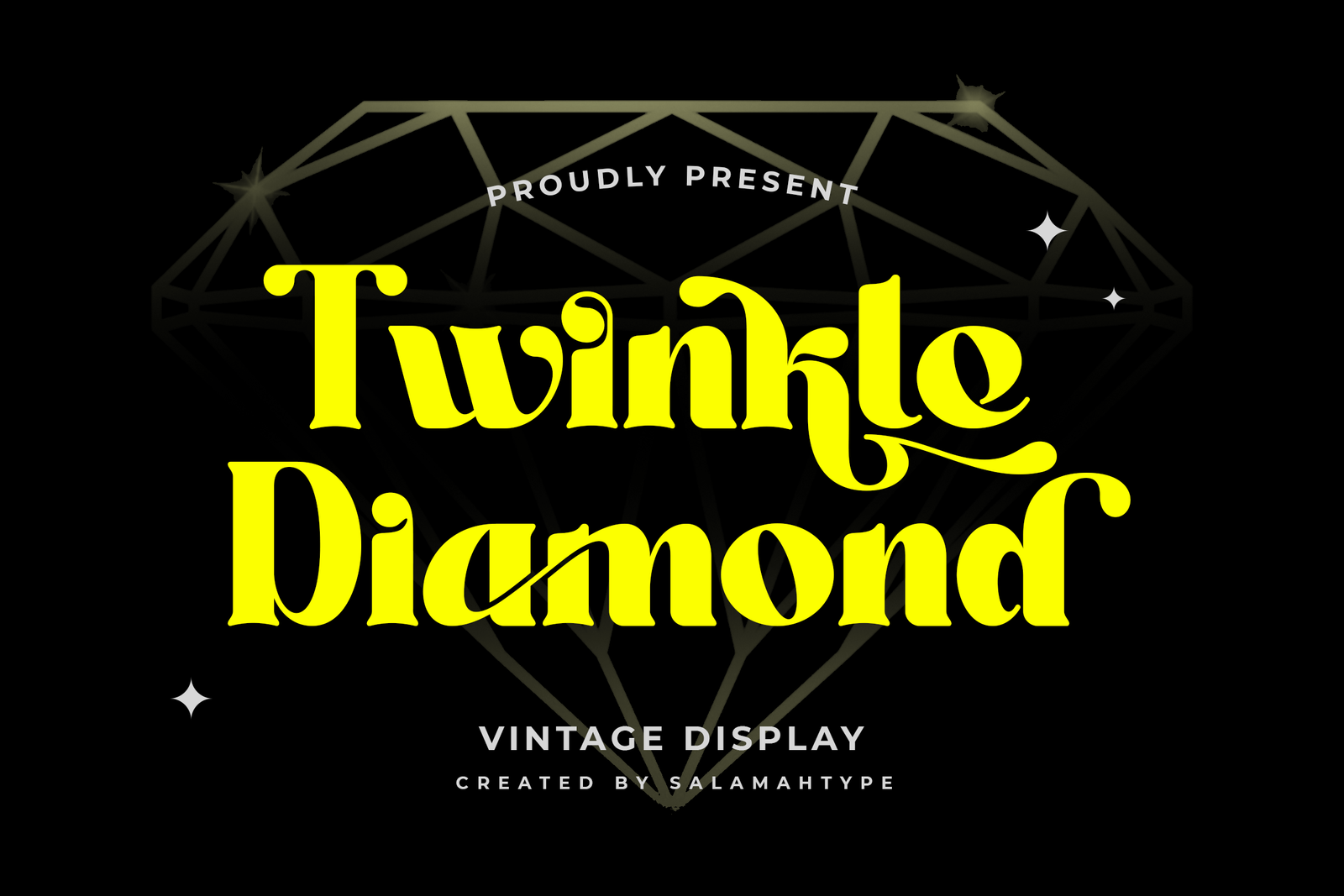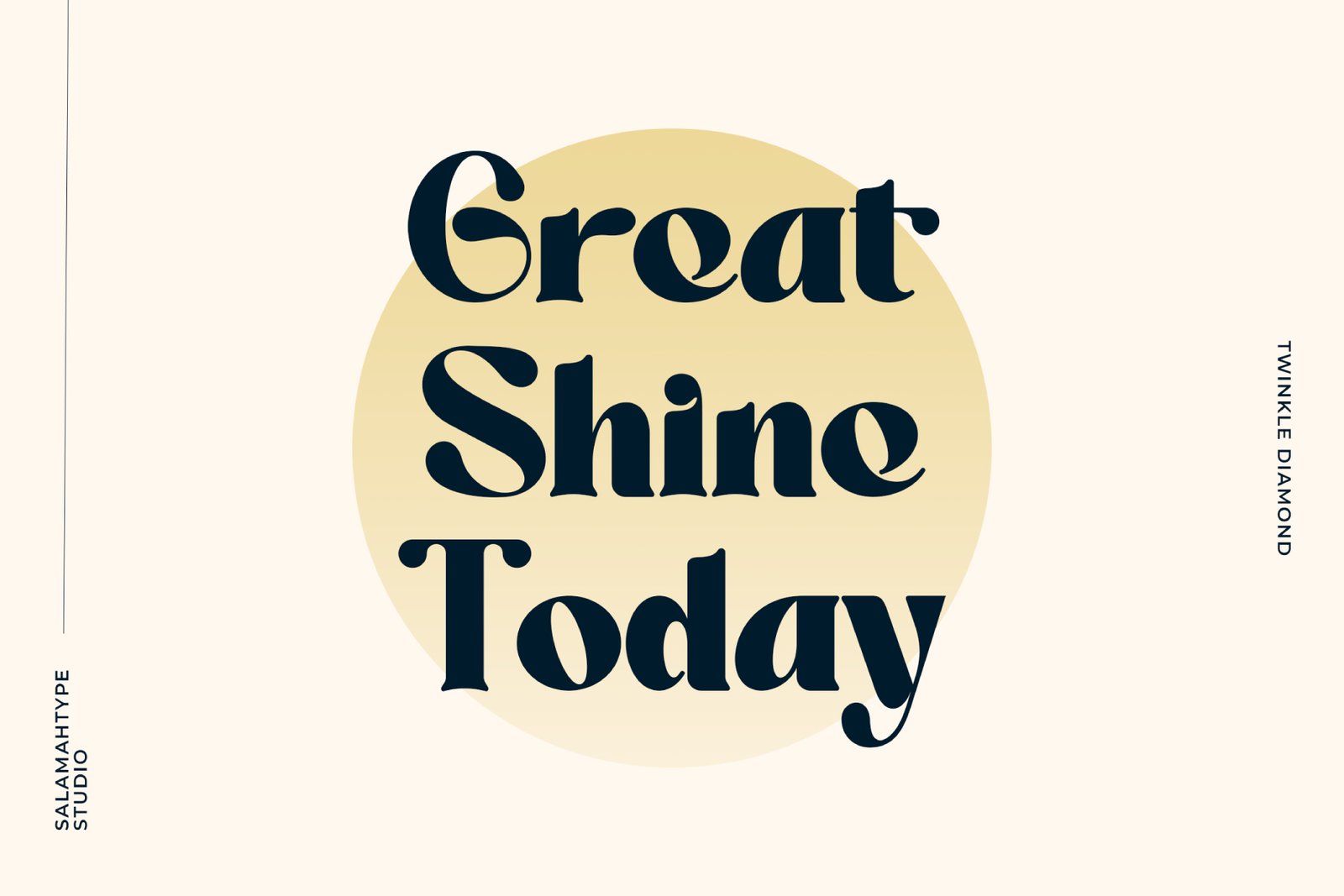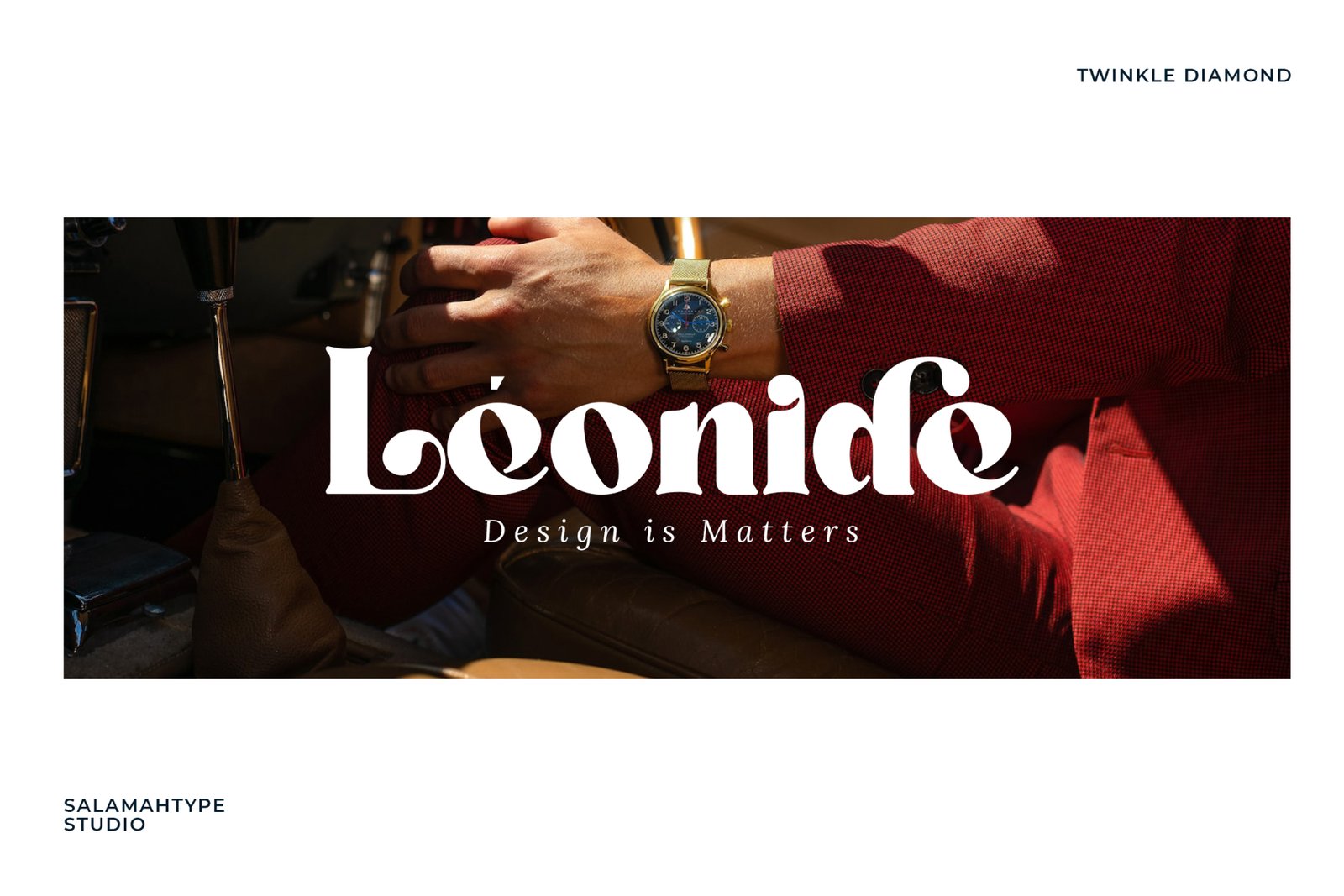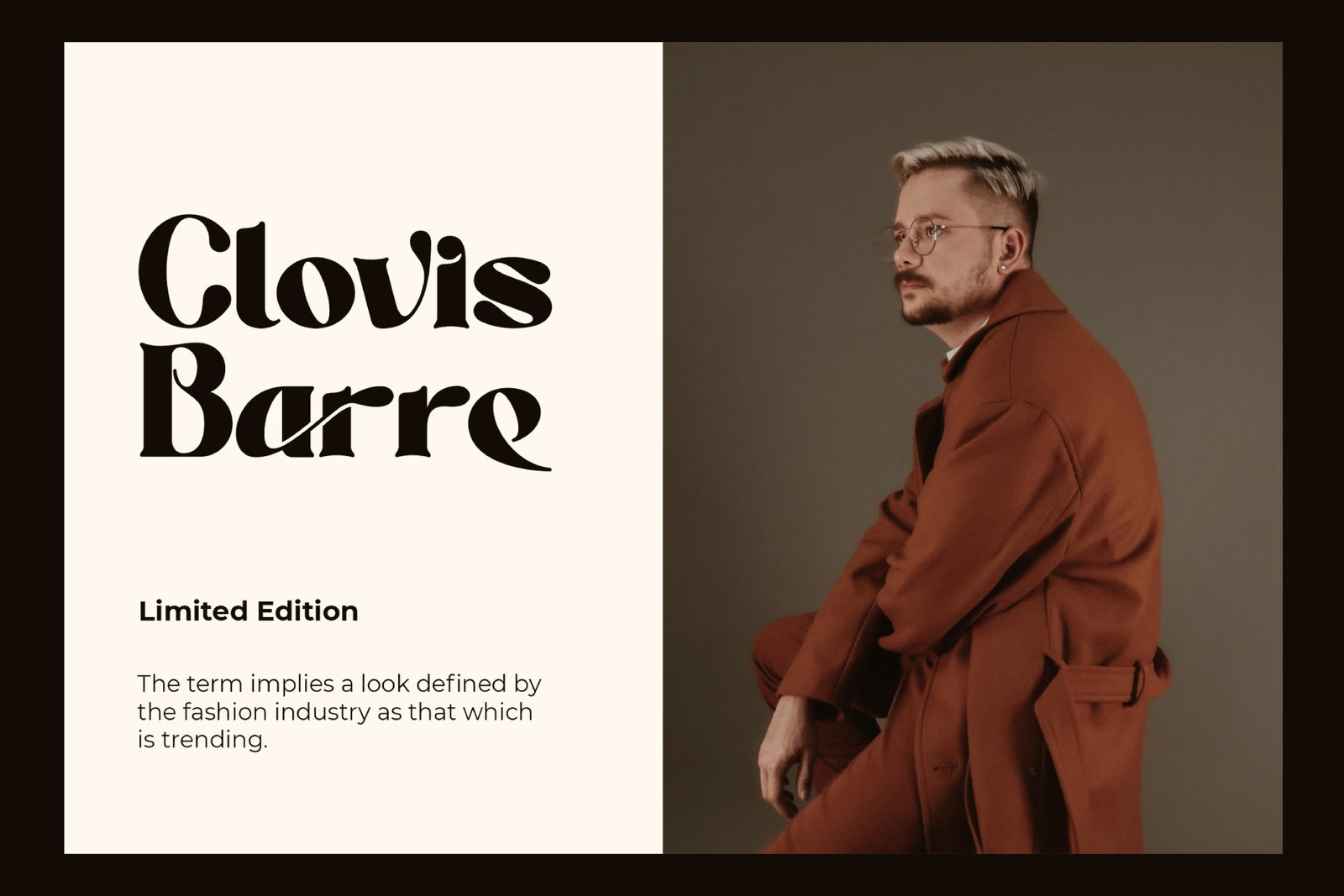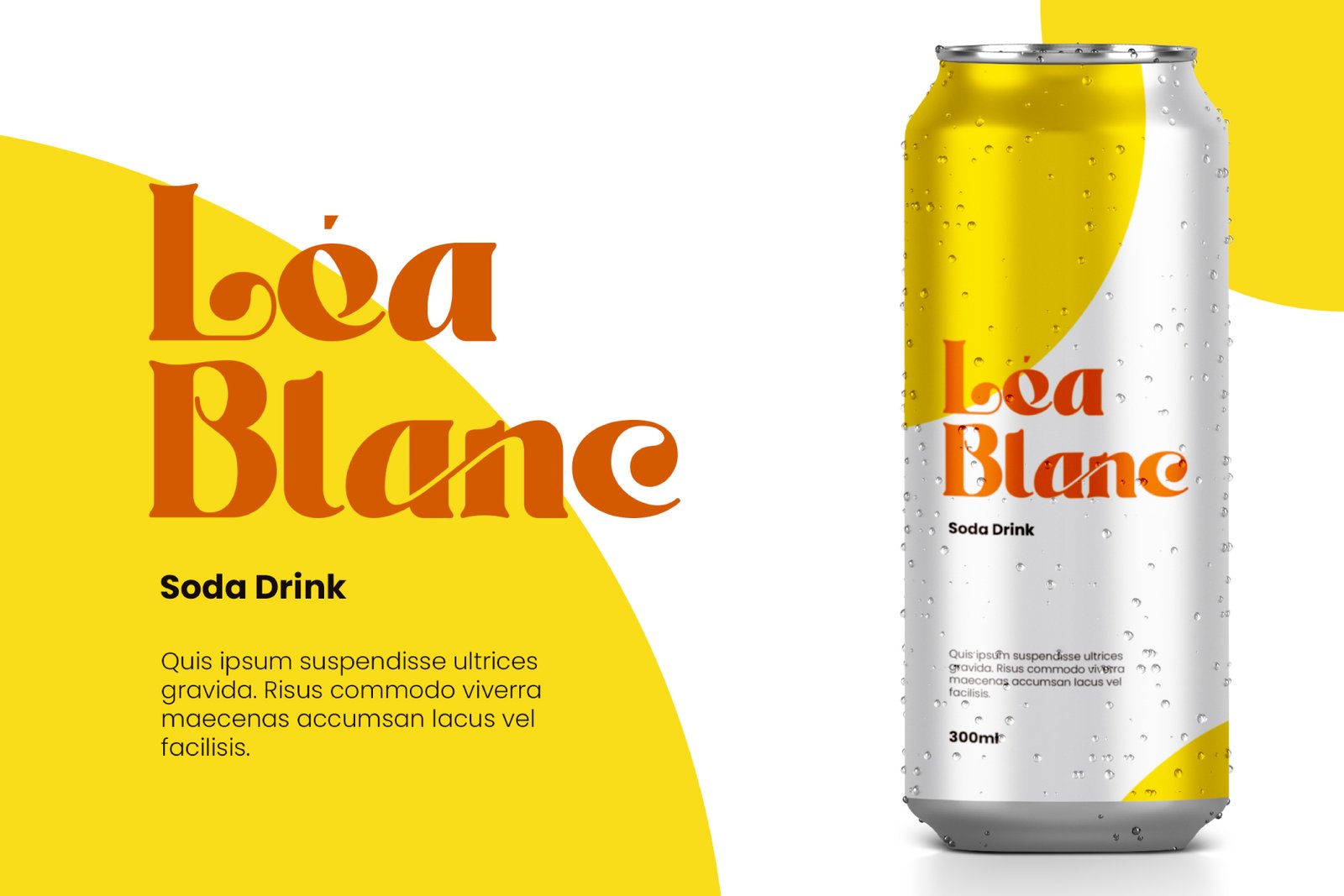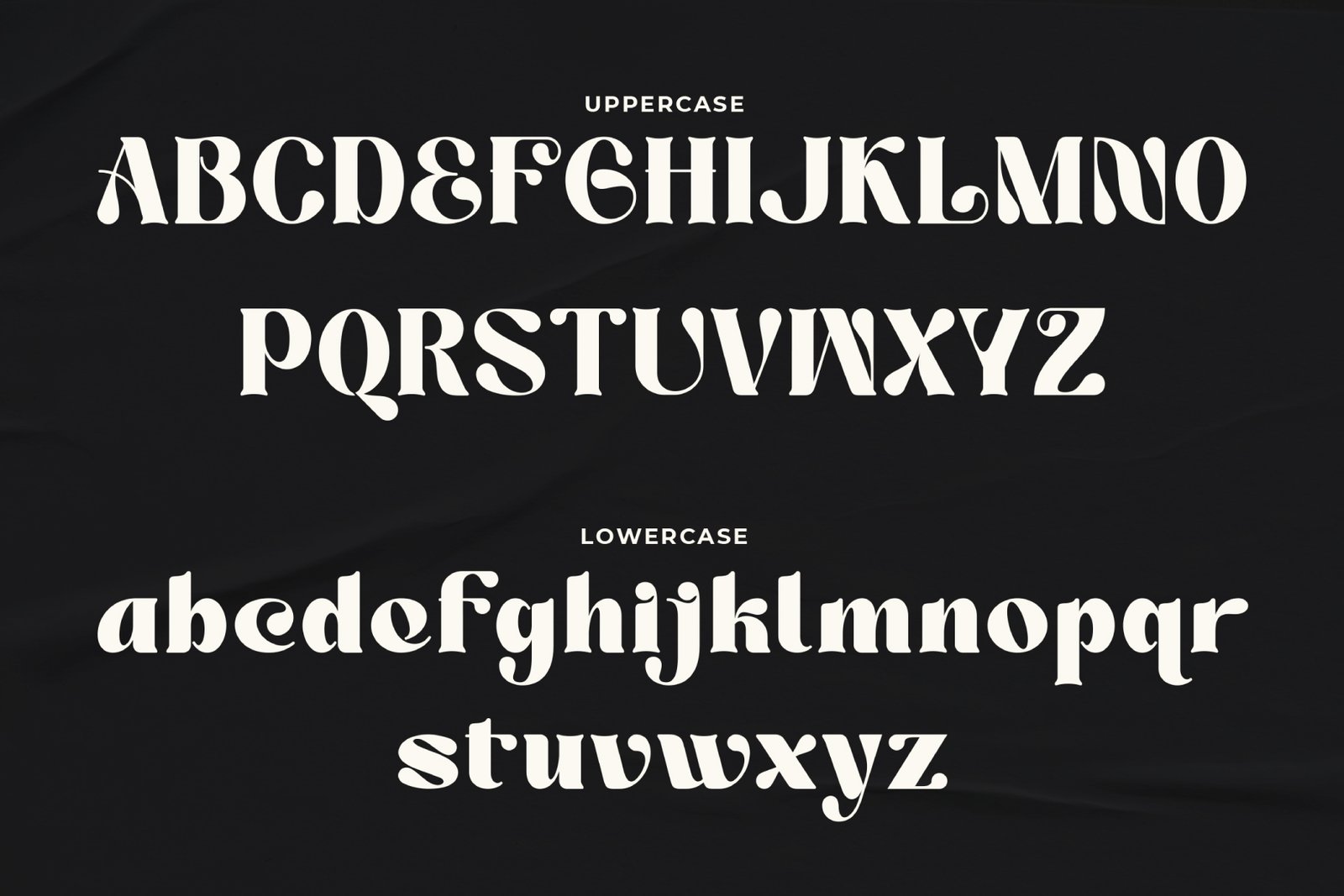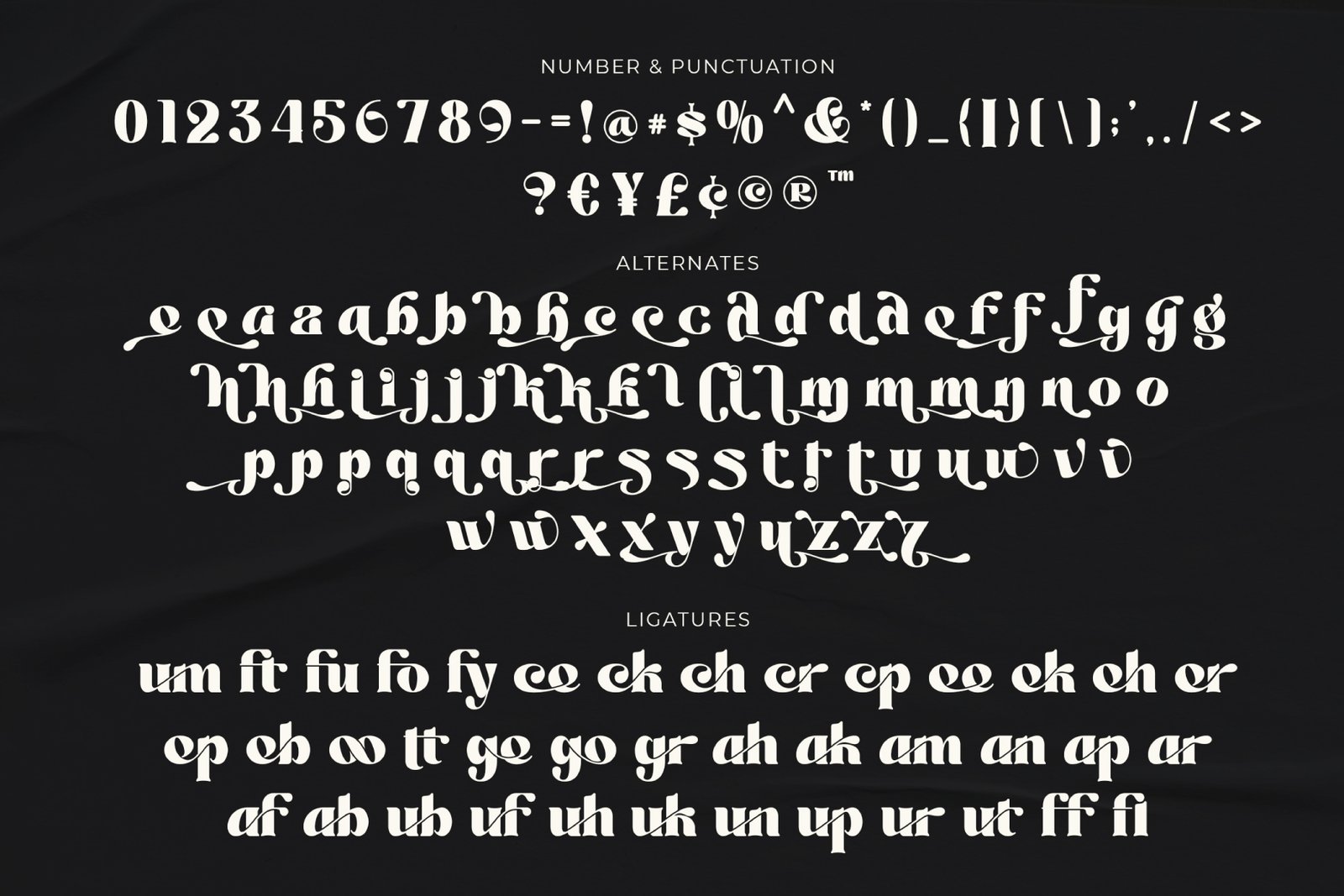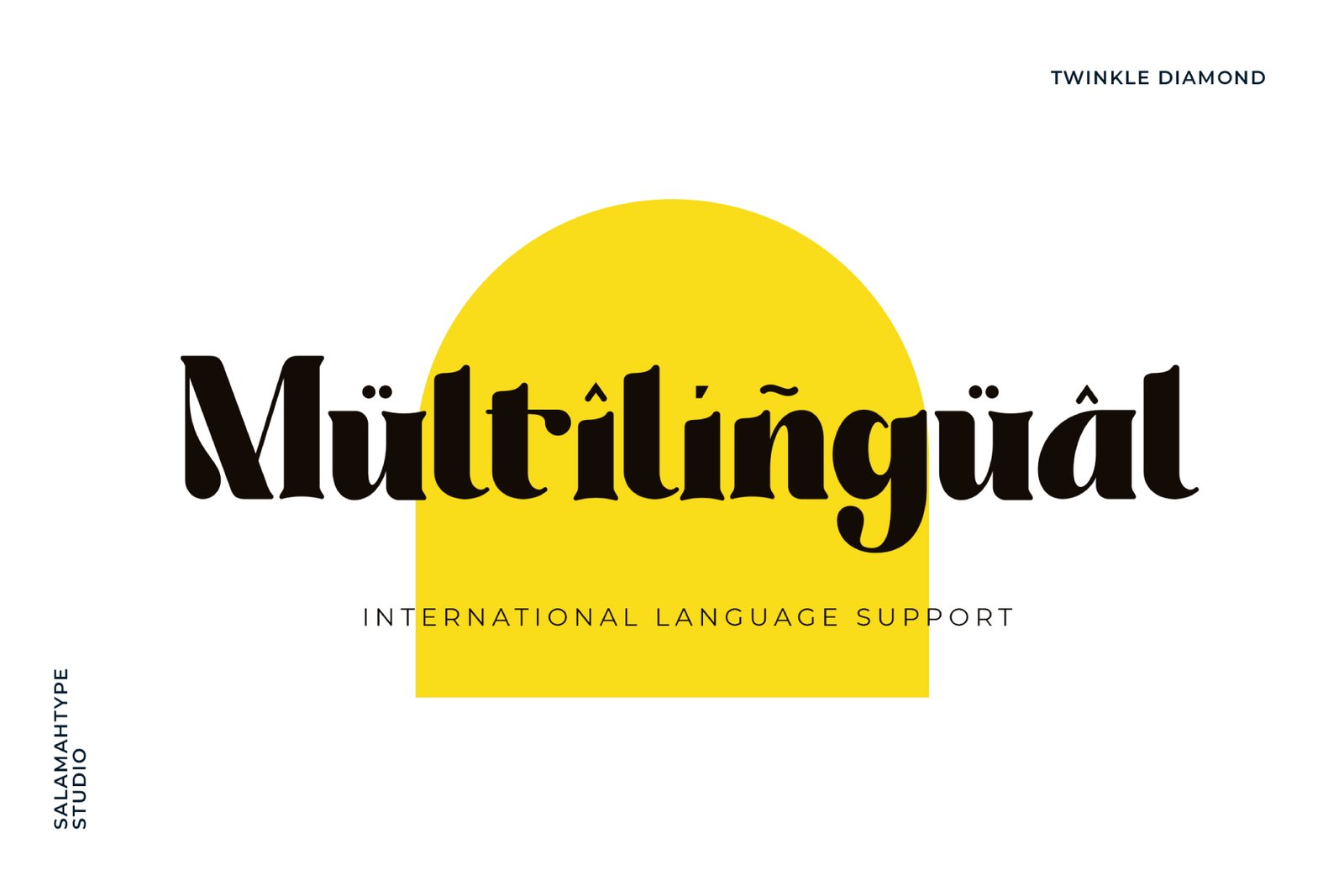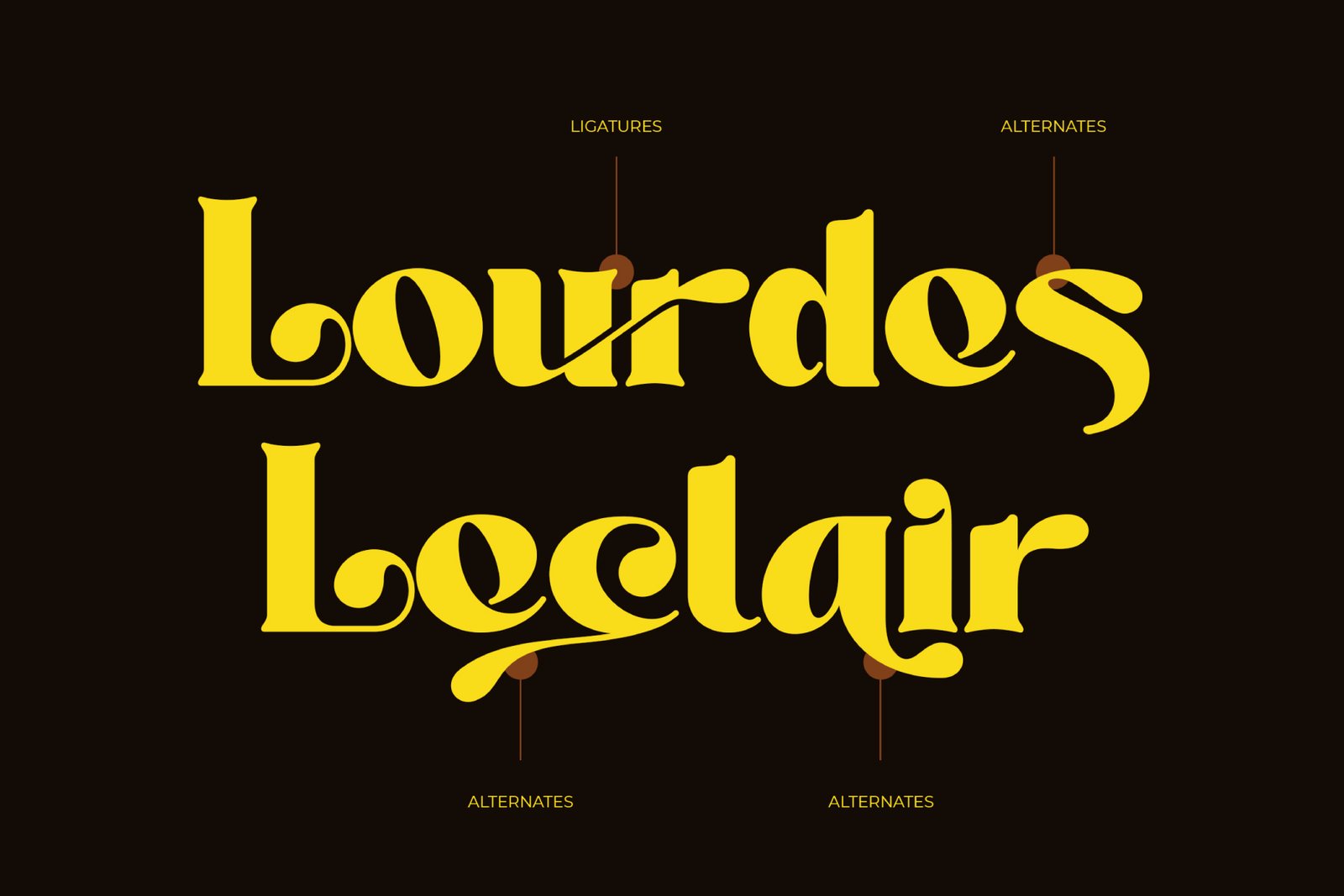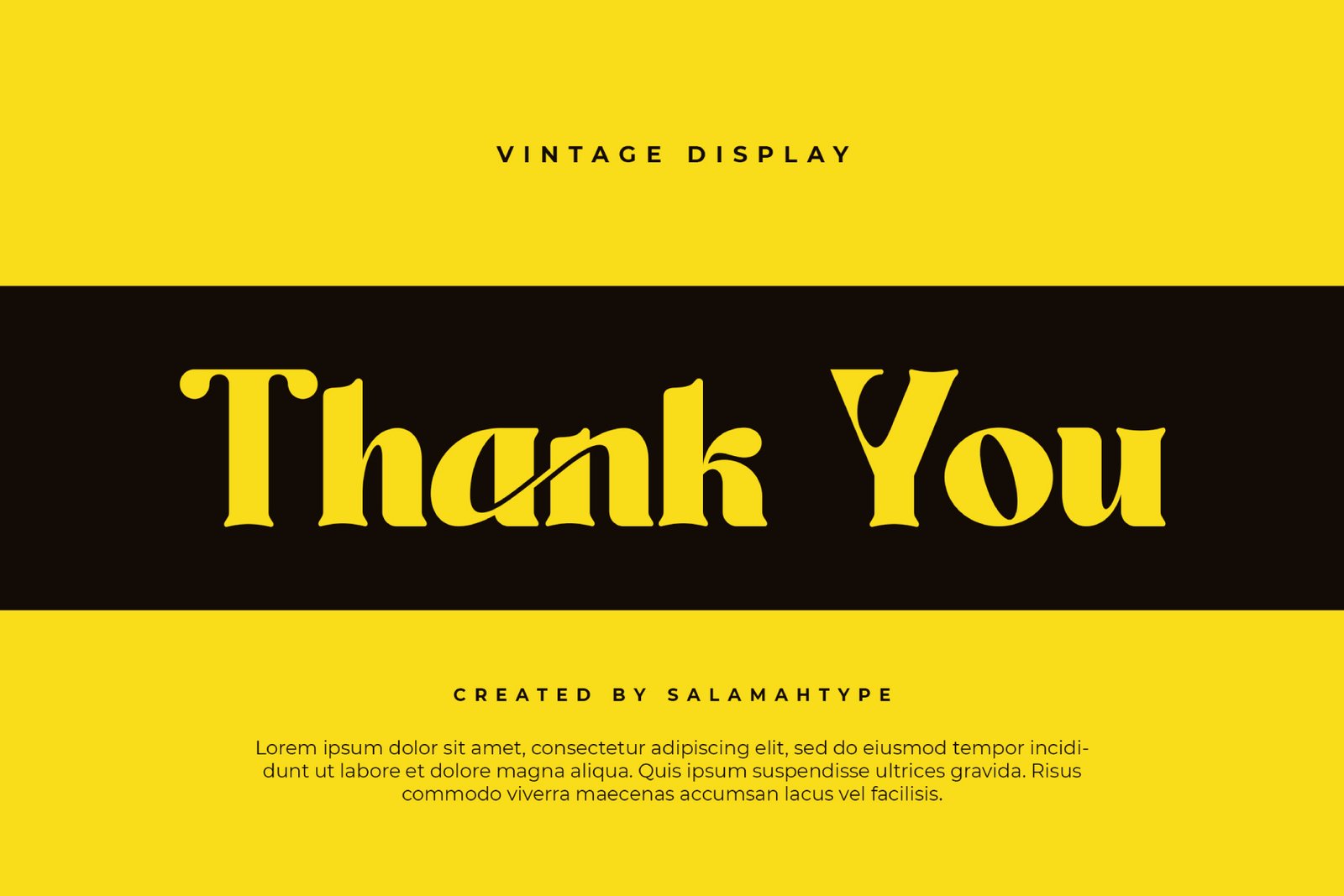
- Twinkle Diamond
Hello, Twinkle Diamond is an elegant, classic styled font with lots of alternates and ligatures make this font even more unique, perfect for creating logos, magazines, story titles, product packaging, or other branding projects. This font will make your brand or product look more different and attractive.
- Uppercase and lowercase
- Punctuation and symbols
- Alternates
- Ligatures
- Multilingual support